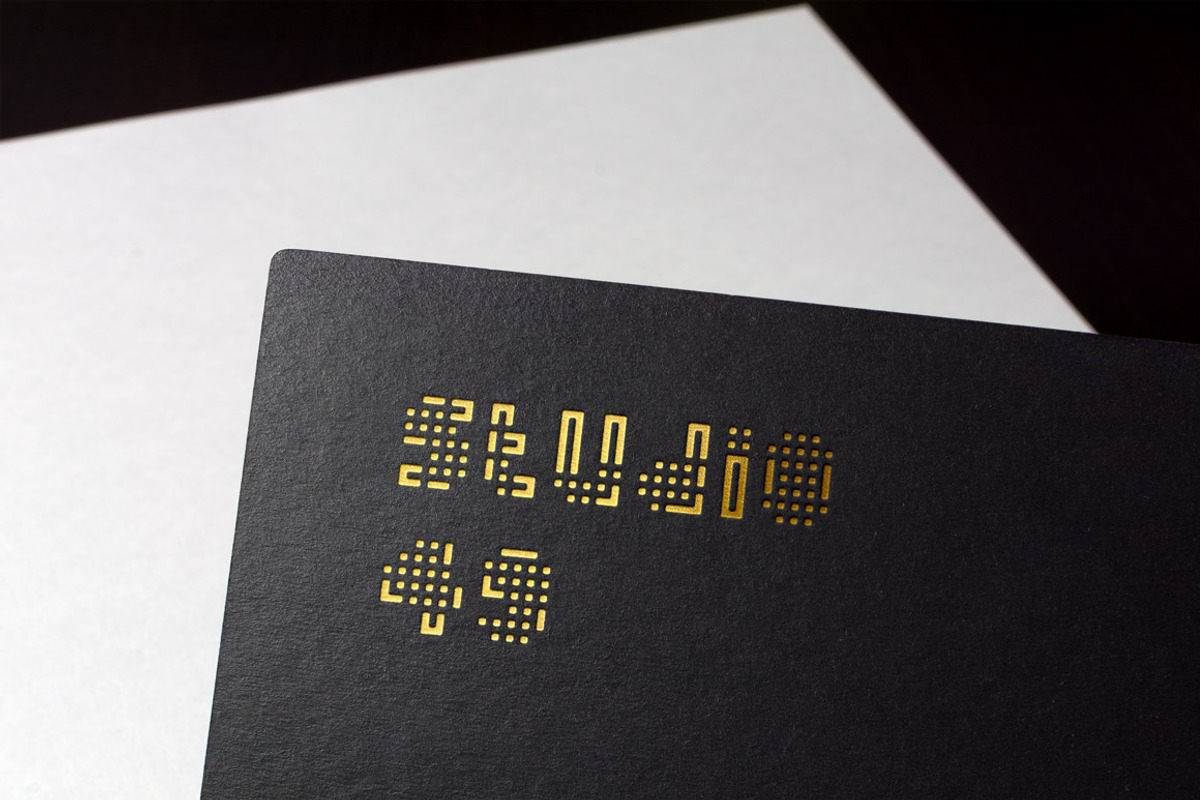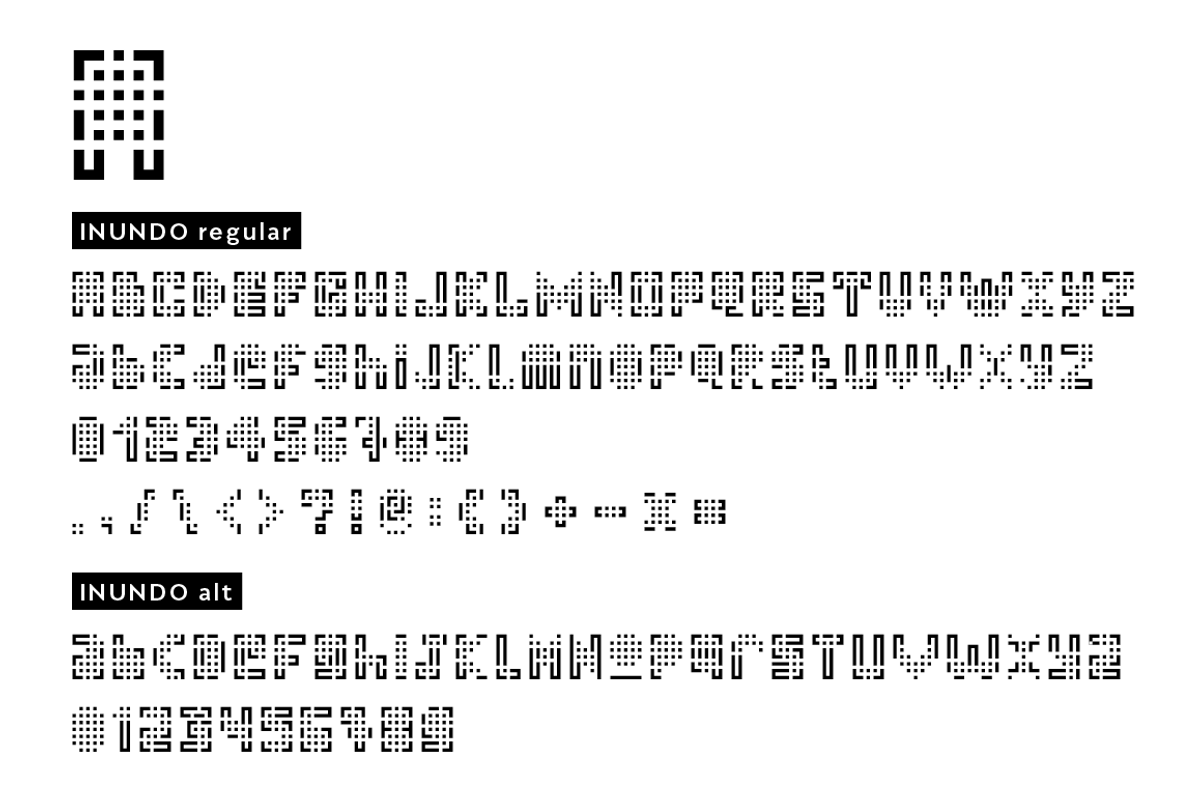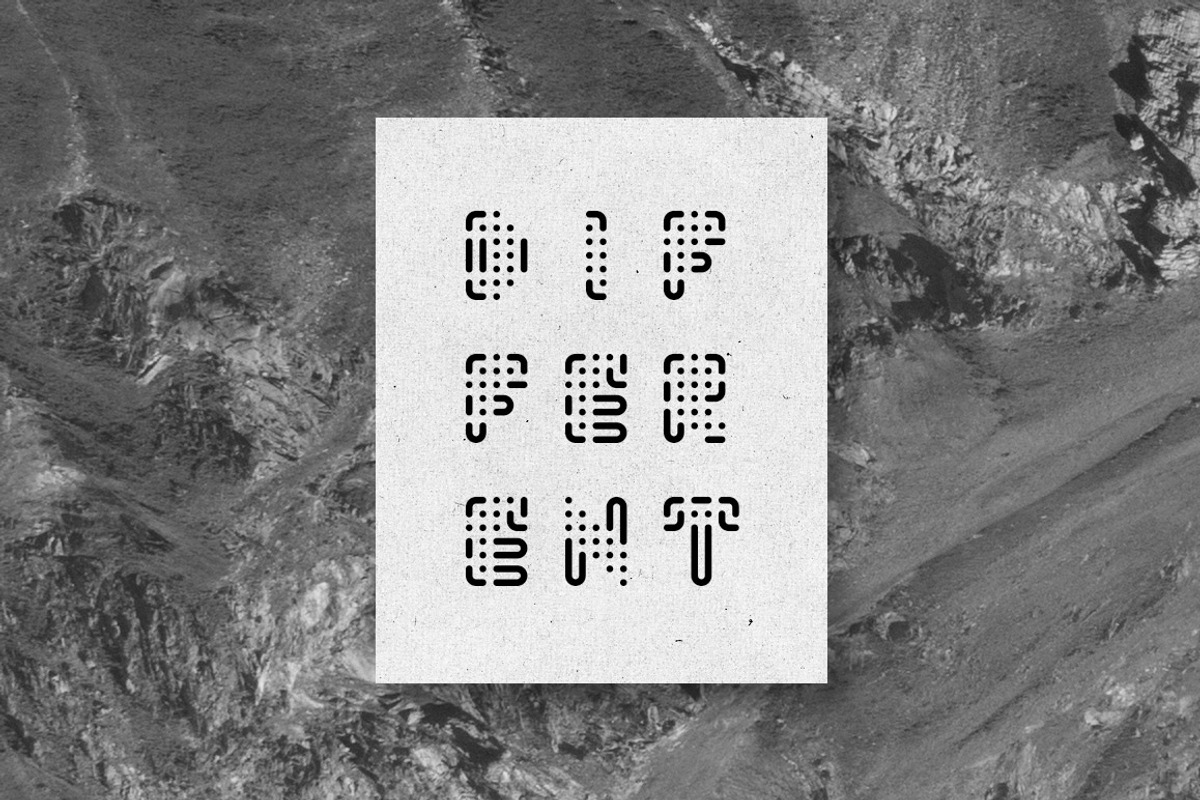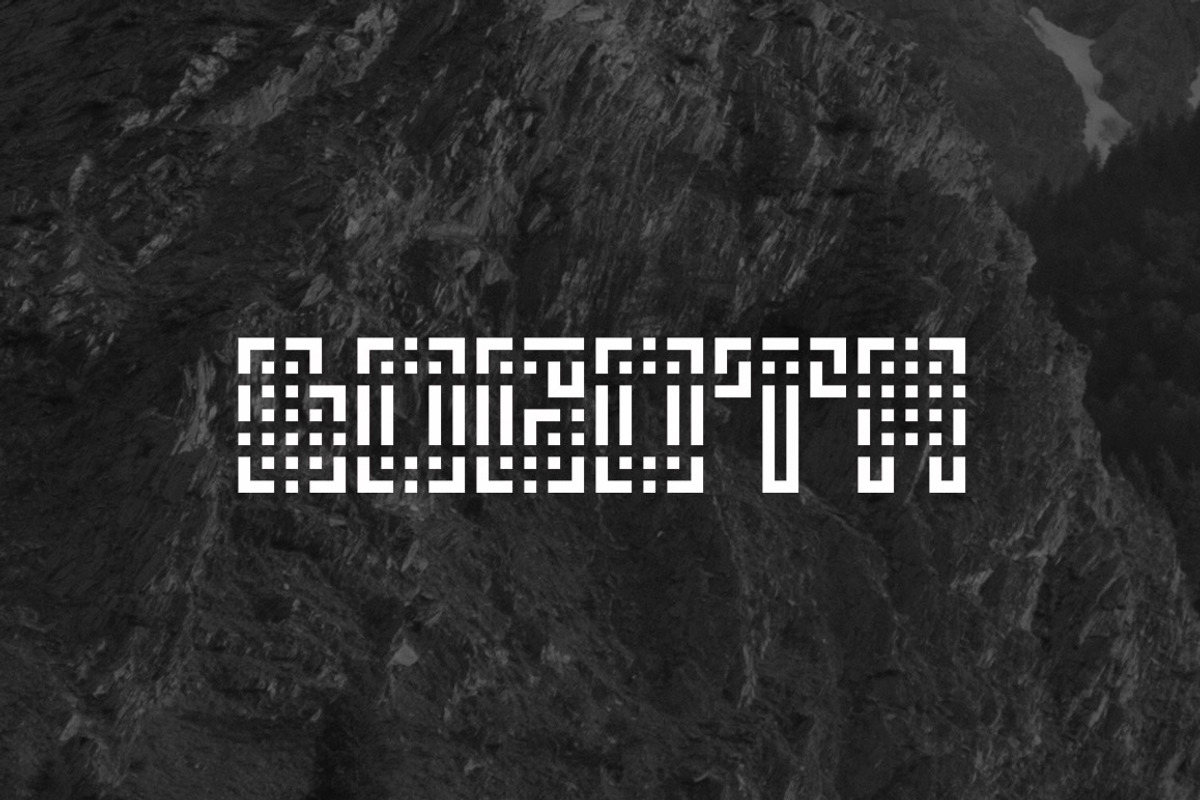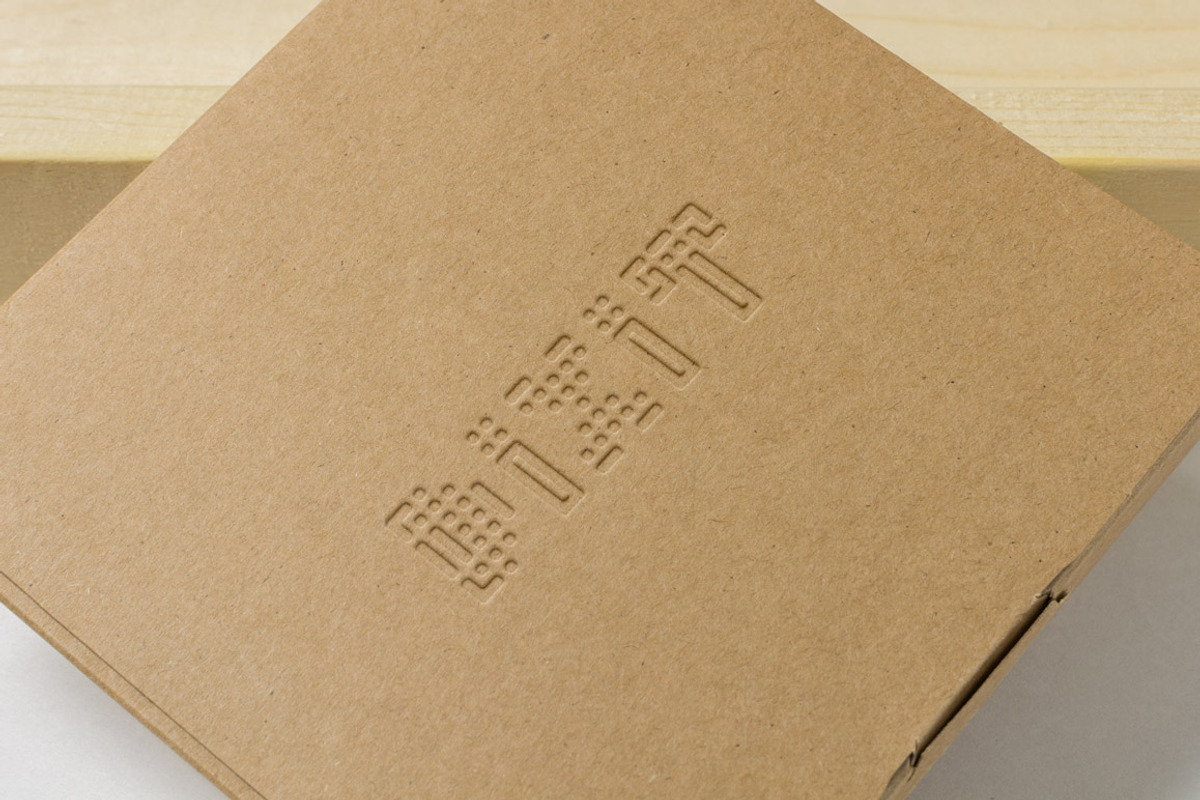
INUNDO FONT
INUNDO, a tribute to Wim Crouwel, is a display font suitable for logo's, titles and short phrases. Also highly usable as a stencil font for graffiti.
Each character has 12 versions:
4 styles: regular, rounded 1, rounded 2, rounded 3
each style has an uppercase, lowercase + alt lowercase version